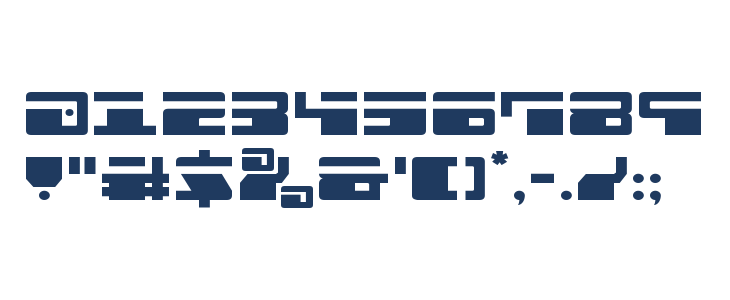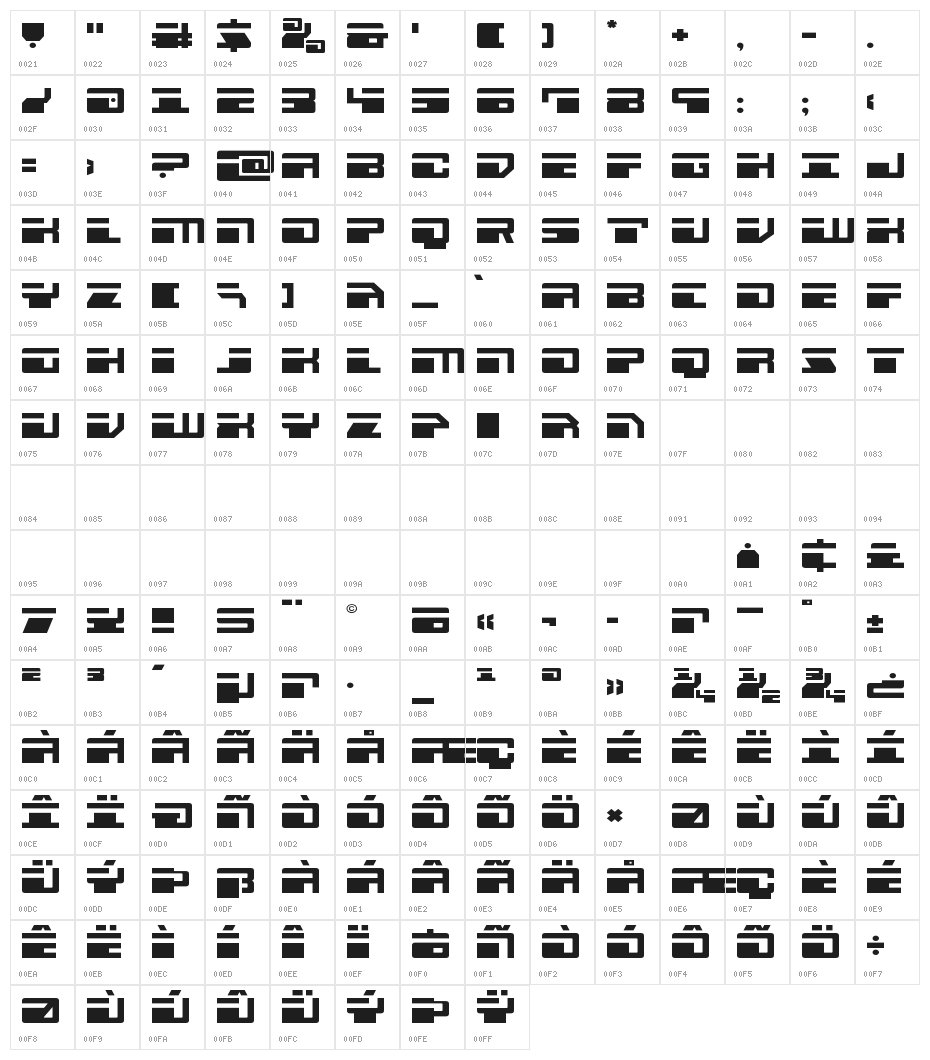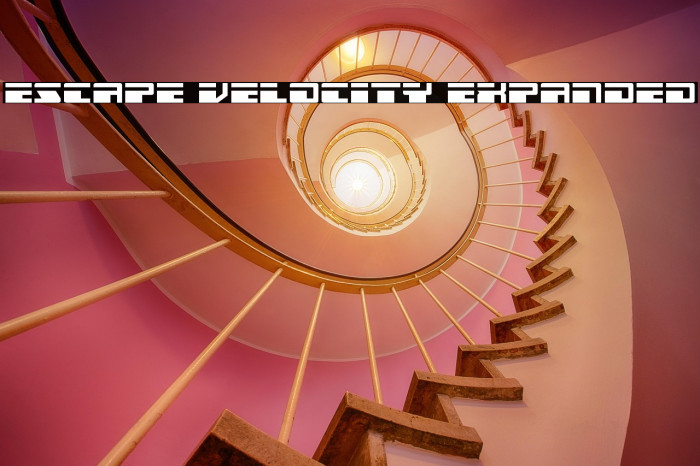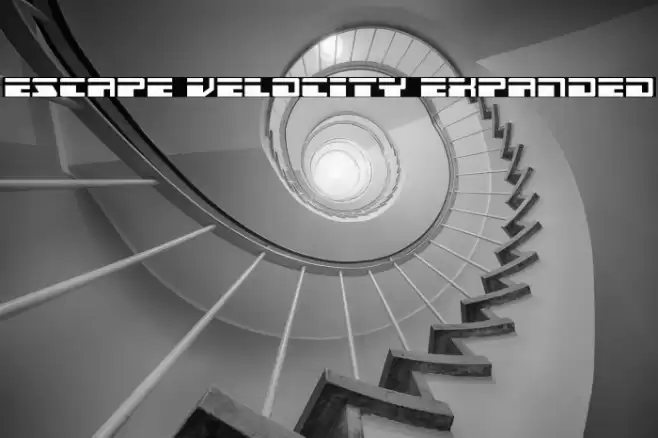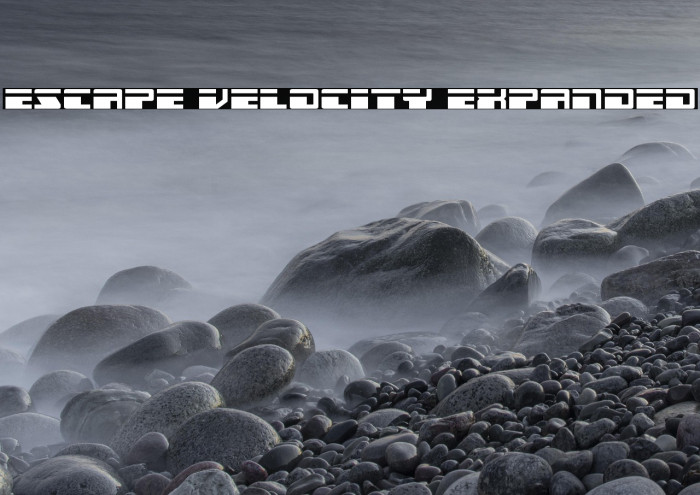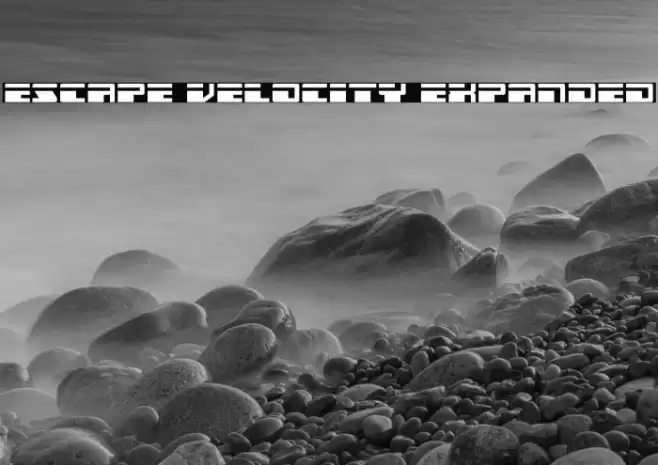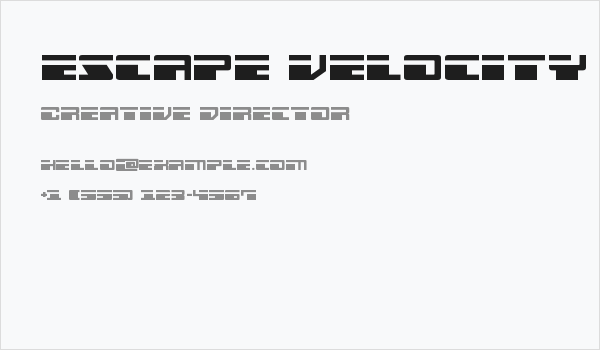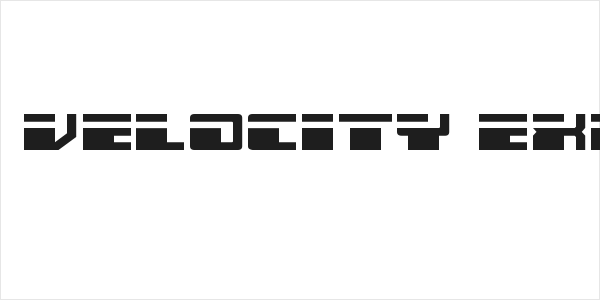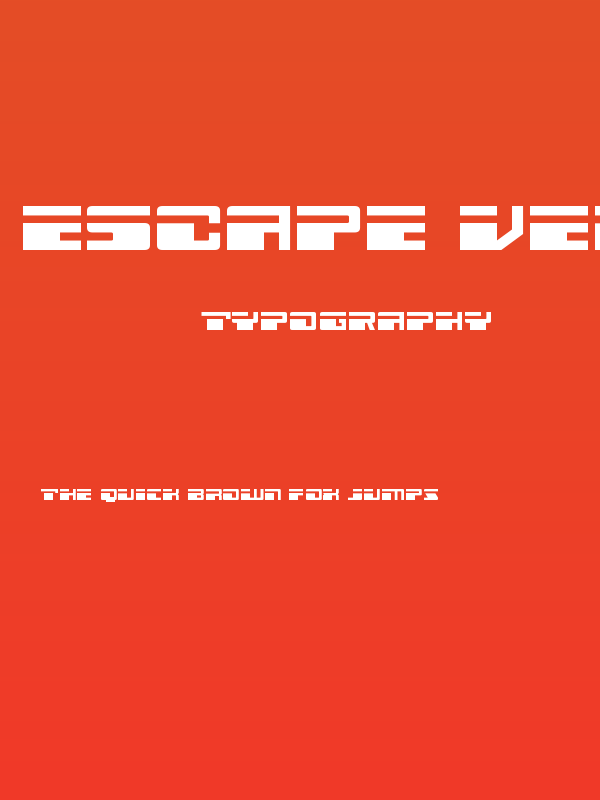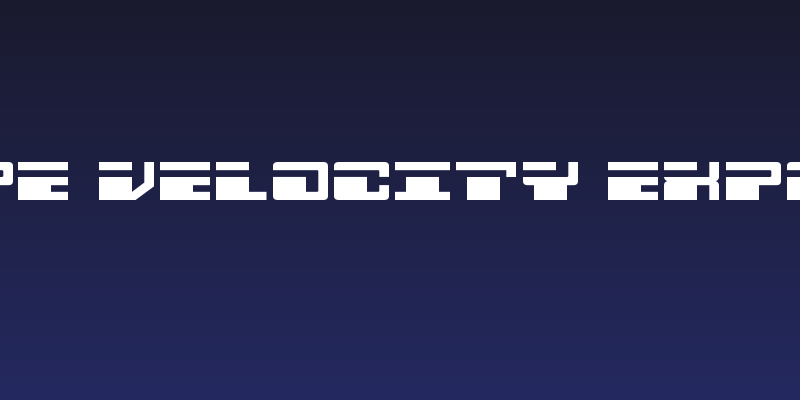
Escape Velocity Expanded Font
Escape Velocity Expanded Description
This font features a bold, futuristic design with a distinctly geometric and angular style. The characters are constructed with solid, block-like forms, giving them a strong and impactful presence. The uppercase letters are uniform in height, while the lowercase letters maintain a consistent style, enhancing readability. The numbers and special characters follow the same bold and structured design, ensuring a cohesive look across all elements. The font's expanded width and tight character spacing contribute to its modern and dynamic appearance, making it suitable for attention-grabbing headlines and titles.
| Proposed Projects | Ideal for sci-fi themed projects, video game titles, tech branding, and futuristic posters. |